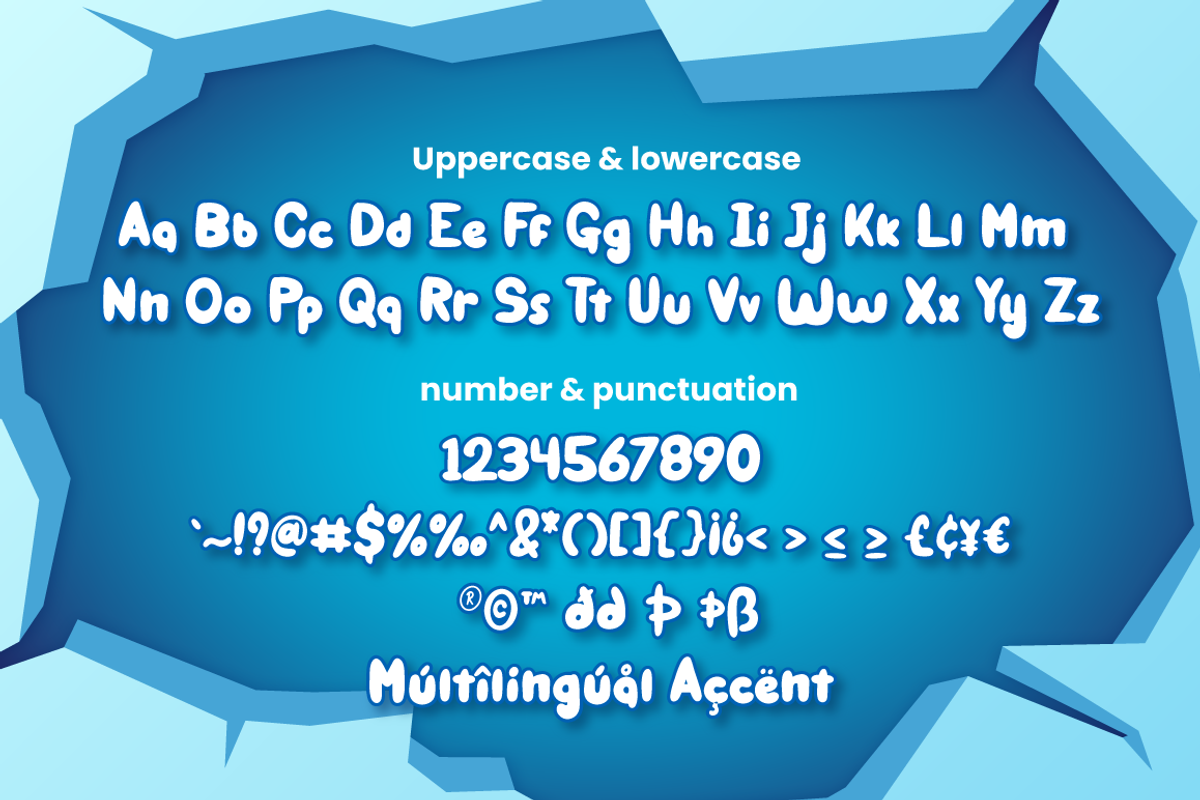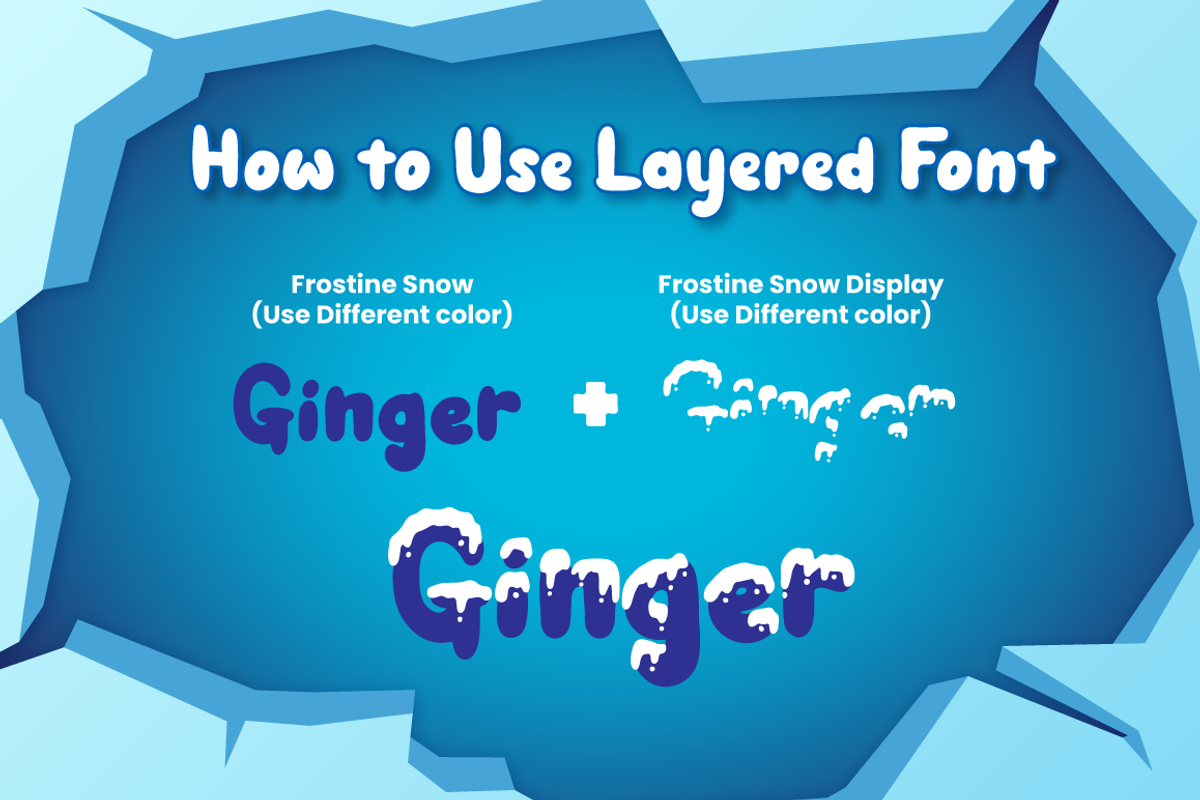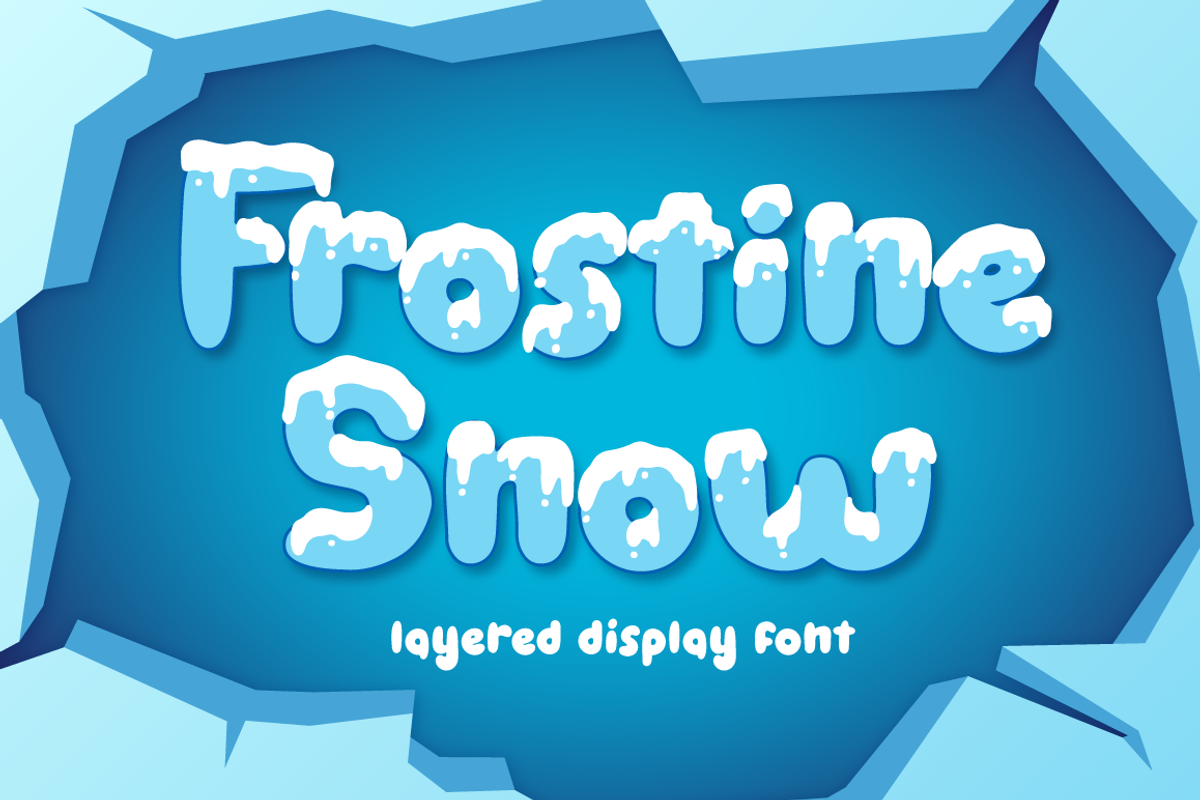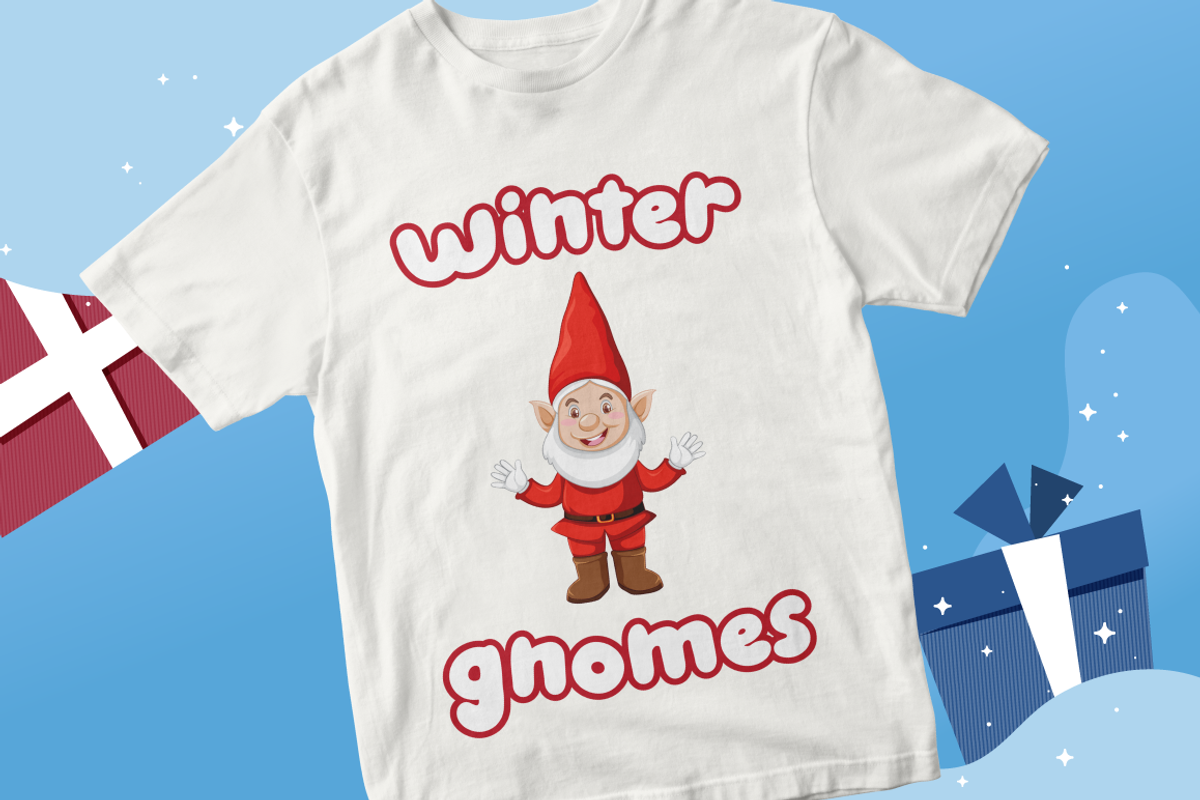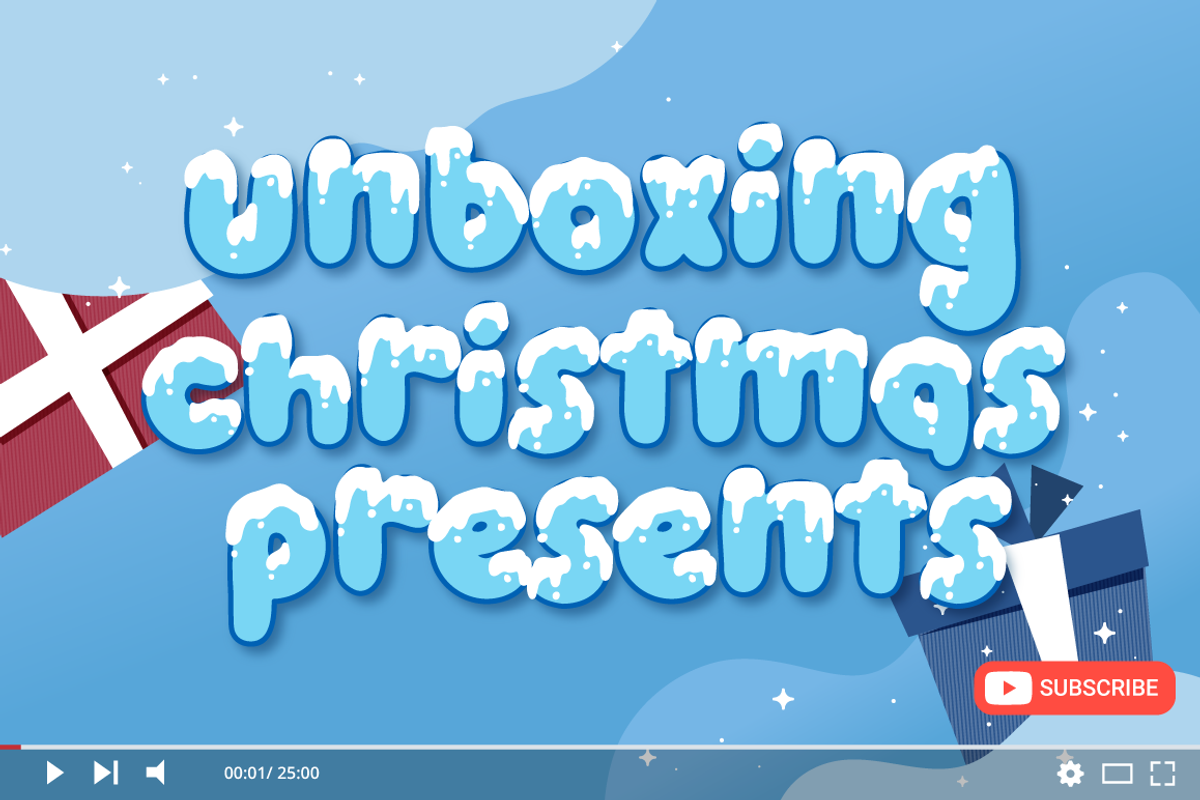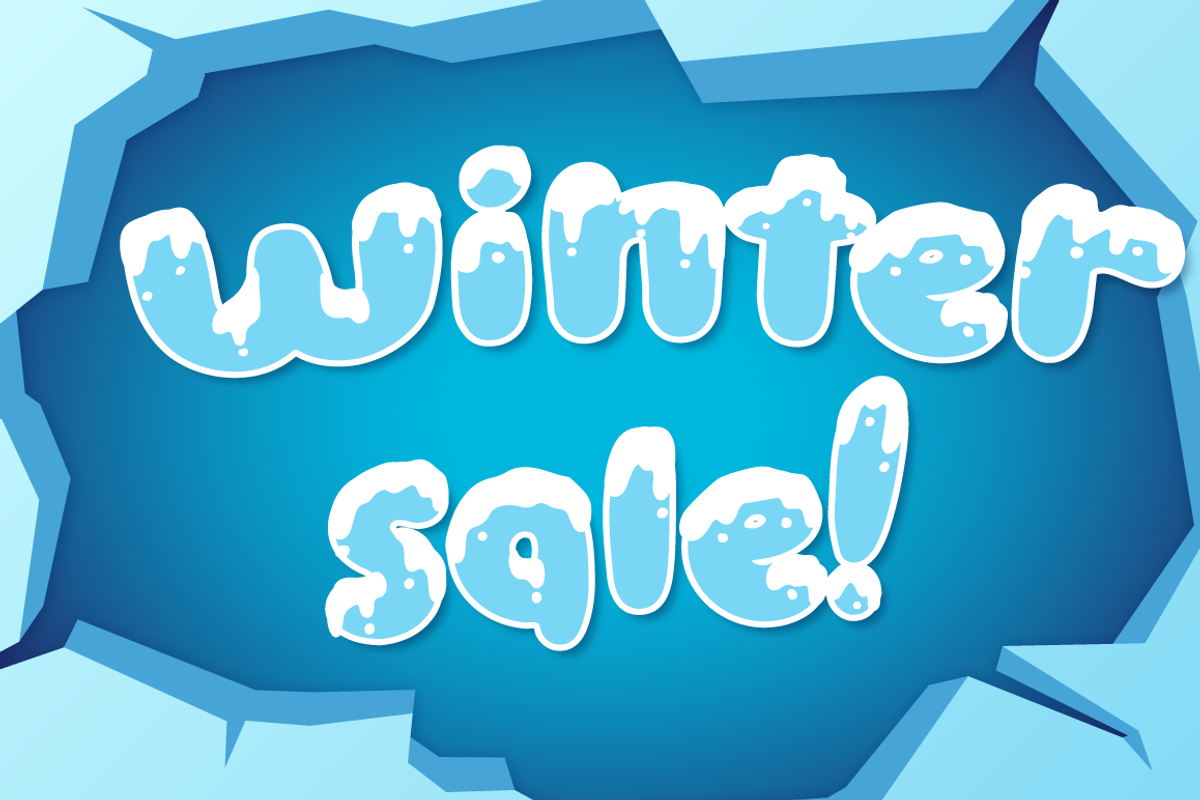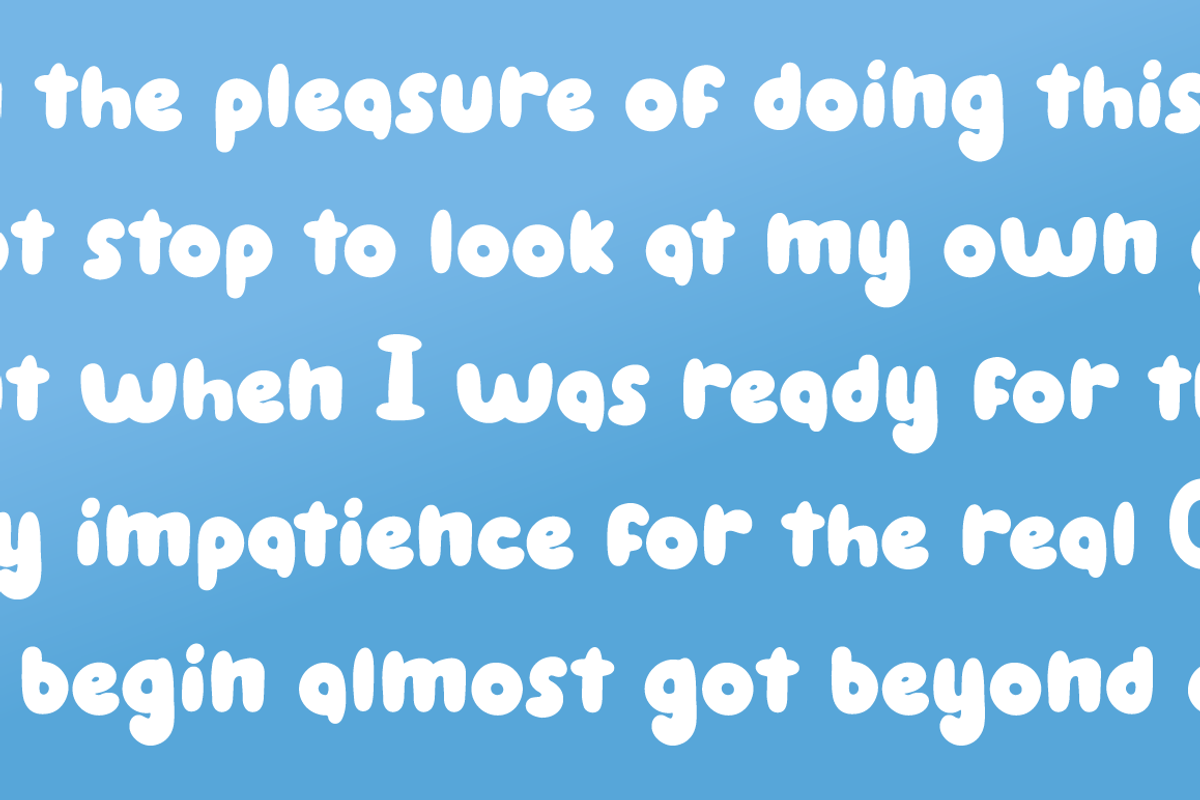
Frostine Snow - Christmas Font
Introducing Frostine Snow - Inspired by winter snow, Frostine Snow is christmas font. perfect for making merry christmas images for card & super easy to use for 3D effect using Frostine Snow font, make combination of this font to create amazing design!
Two style Font: Handwritten & Display
Frostine Snow is perfect for children product, branding, logo, invitation, stationery, product packaging, merchandise, monogram, blog design, game titles, cute style design, Book/Cover Title and more.